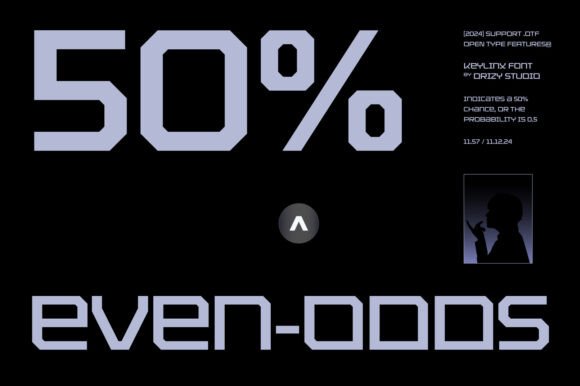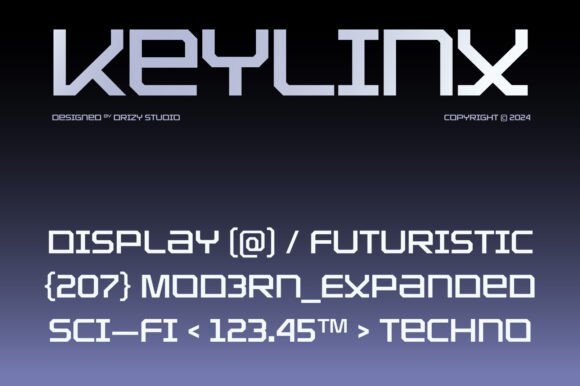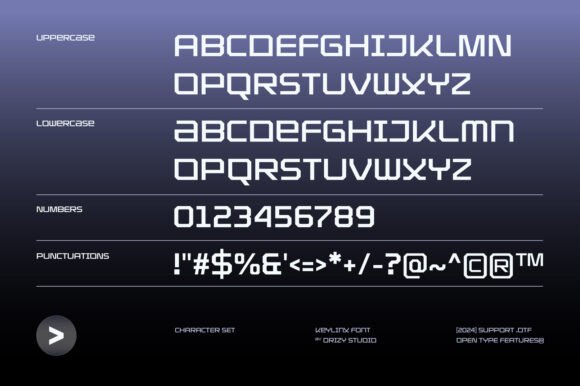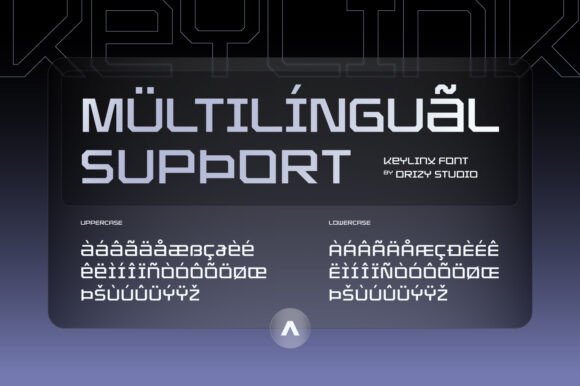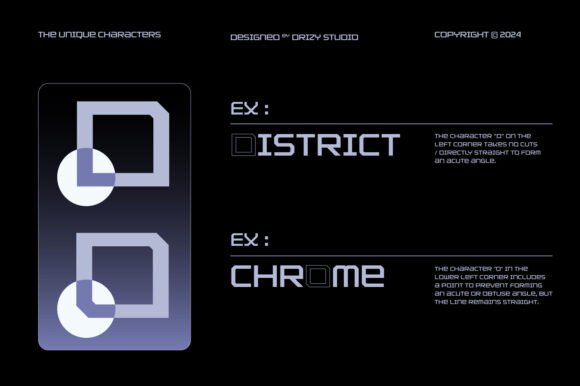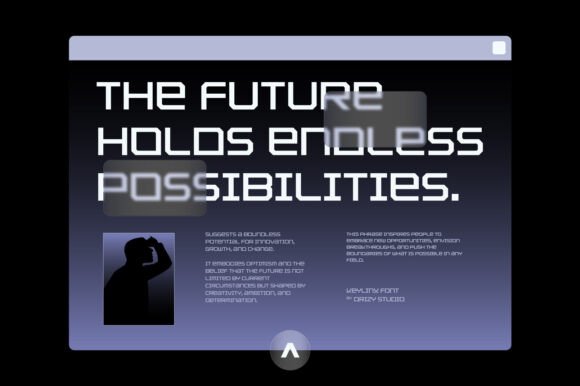
Unlocking the Future with Keylinx Font
Have you ever found yourself staring at a blank canvas, desperate for the perfect font to bring your creative project to life? The struggle is real, but what if I told you there’s a game-changing solution out there? Meet Keylinx Font, a sleek and sophisticated futuristic font designed to take your design to the next level. With its sharp edges and seamless curves, Keylinx Font brings a cutting-edge aesthetic that’s perfect for UI/UX design, tech-inspired visual identity, and high-impact digital projects.
As a designer, you’re always on the lookout for high-quality design resources that can elevate your work. Keylinx Font is exactly that – a valuable addition to your design arsenal that combines functionality with style. Whether you’re working on a logo, app interface, or branding project, Keylinx Font is the perfect choice for designers who demand a forward-thinking look. And the best part? It’s available for free download, making it an accessible design resource for creatives of all levels.
Key Features of Keylinx Font
- High-quality design resource ideal for creative projects, offering a unique and modern aesthetic.
- Features a transparent background, allowing for seamless integration with any design or background.
- Comes in a range of sizes, from 16px to 64px, to accommodate various design needs and requirements.
- High-resolution design, suitable for both digital and print applications, ensuring crisp and clear text display.
- Unique characteristics and style make it an excellent choice for designers seeking a distinctive and creative look for their projects.
- Designed to be highly legible and versatile, making it suitable for a wide range of creative projects and design applications.
Honest Review: Keylinx Font
As a designer, I’m always on the lookout for high-quality fonts to elevate my creative projects. Recently, I stumbled upon the Keylinx Font, and I must say it’s been a game-changer for me.
Here are some things that I think work well about the Keylinx Font:
- ✨ Great versatility: I’ve used it for everything from headings to body text, and it always looks stunning.
- ✨ High-quality design: The font is sleek, modern, and has a professional feel that’s perfect for a variety of design projects.
However, there are a few limitations that I’ve encountered:
- ⚠️ Limited transparency options: While the font itself is great, I wish there were more options for creating a transparent background.
Overall, I’m thoroughly impressed with the Keylinx Font. It’s a solid addition to any designer’s toolkit, and I’ve been using it for all my creative projects. If you’re looking for a high-quality font for your next design project, I highly recommend giving the Keylinx Font a try.
Keylinx Font Overview
The Keylinx Font is a high-quality design resource that offers a unique and creative way to enhance your projects. With its transparent background, this font is perfect for adding a touch of elegance to your designs.
Tips for Getting the Most Out of Keylinx Font
1. Use the Keylinx Font in combination with other design elements to create a cohesive look.
2. Experiment with different font sizes and styles to add visual interest to your designs.
3. Use the transparent background to create a sense of depth and dimension in your designs.
Common Use Cases for Keylinx Font
The Keylinx Font is perfect for a variety of creative projects, including: